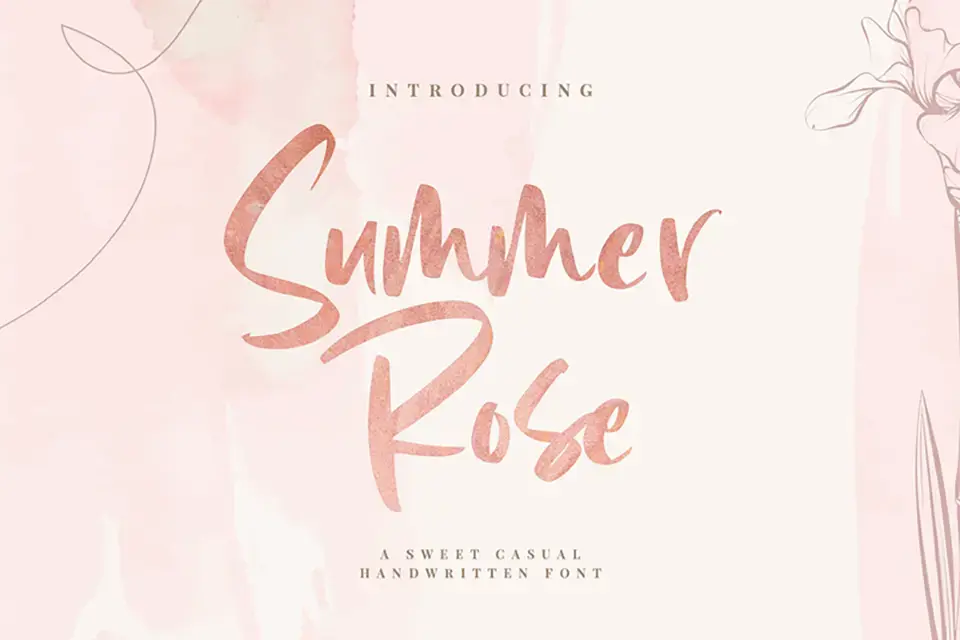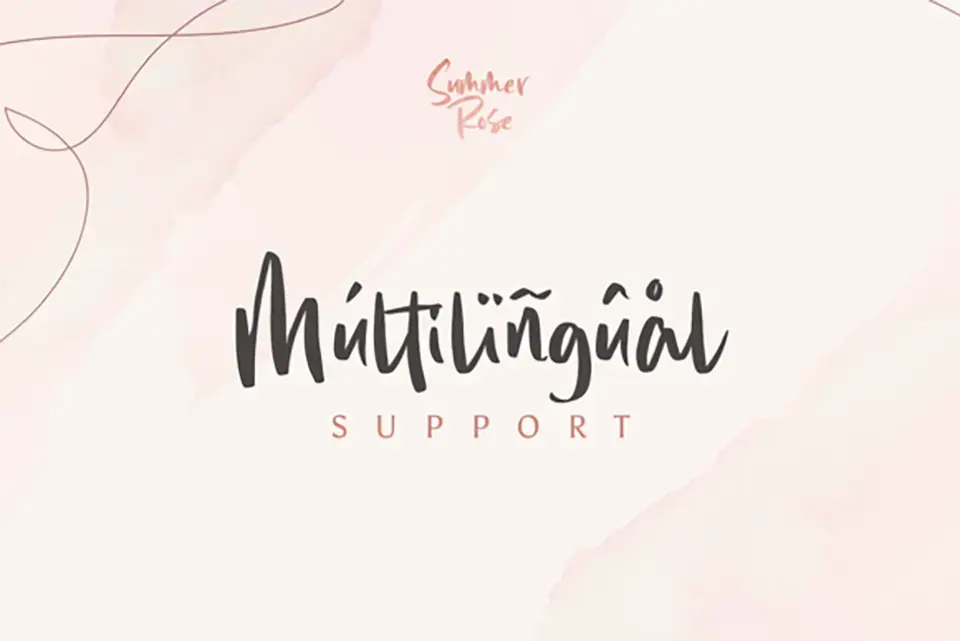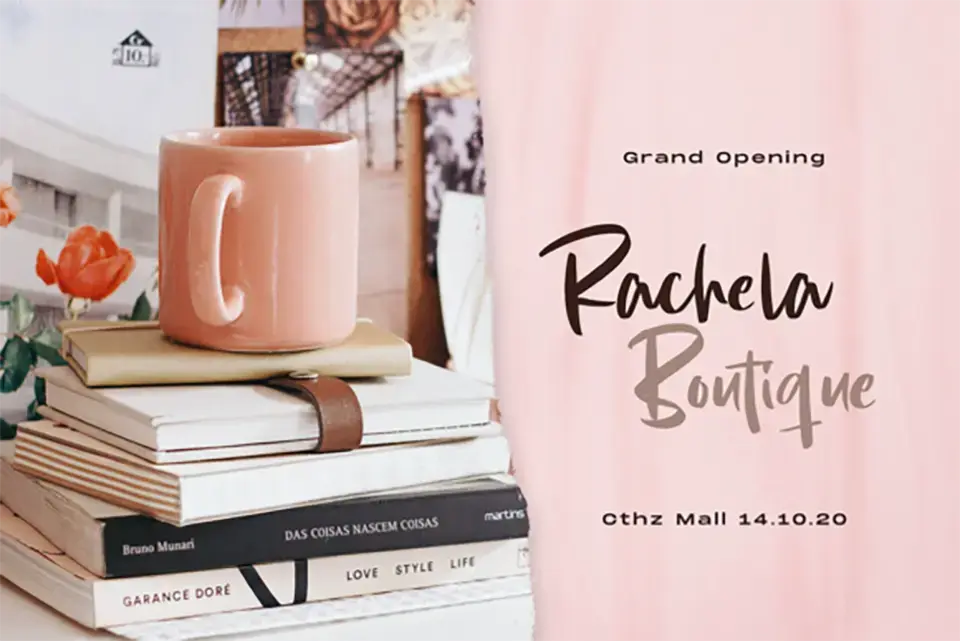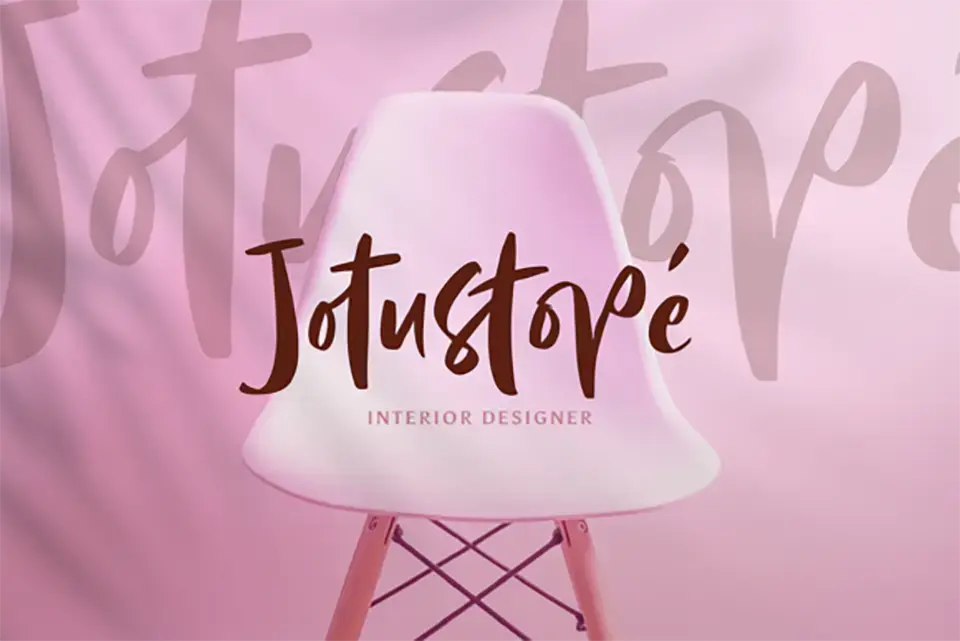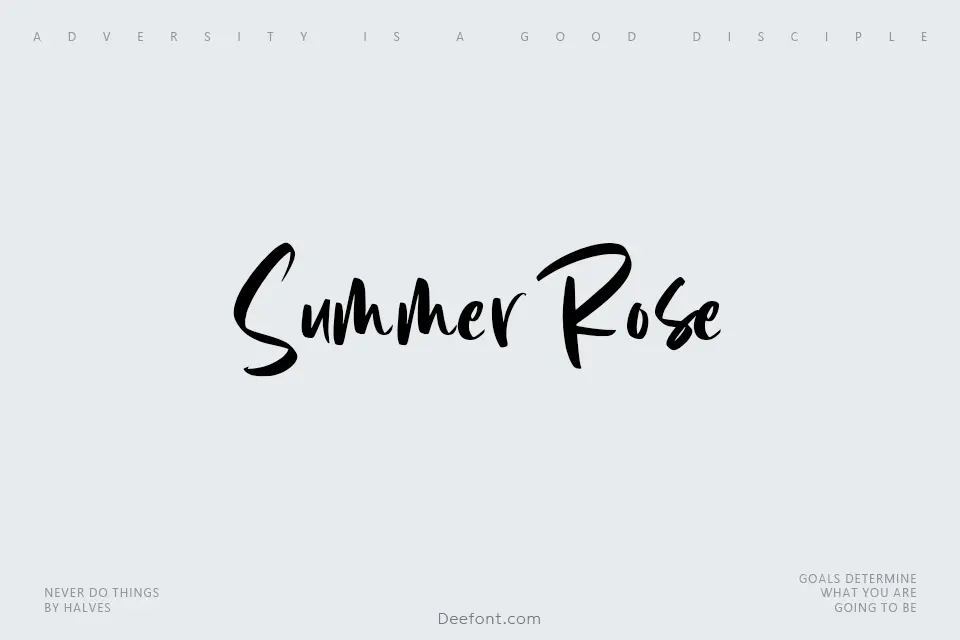
Summer Rose Font
Summer Rose Font is a sophisticated handwritten script that combines elegant curves with refined strokes to create a beautiful, feminine aesthetic. Featuring organic letterforms with graceful flourishes and natural handwriting characteristics, this font excels in creating romantic and elegant designs. Its delicate yet legible construction makes it perfect for wedding invitations, greeting cards, branding projects, and decorative display typography. The font's charming personality brings warmth to logos, packaging designs, and festive seasonal content while maintaining professional versatility suitable for contemporary design applications across digital and print media.